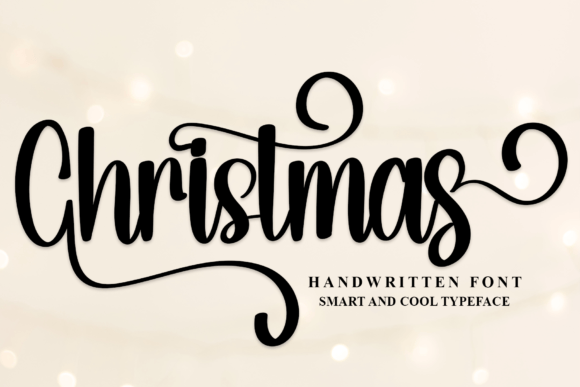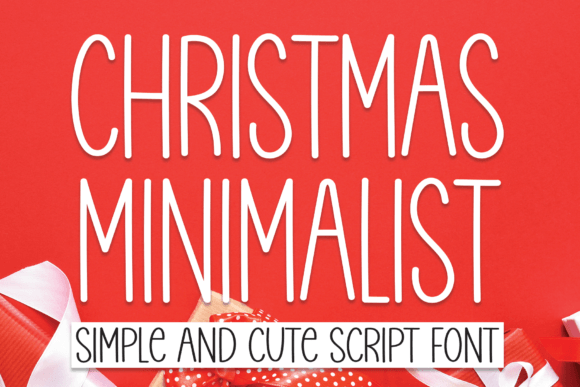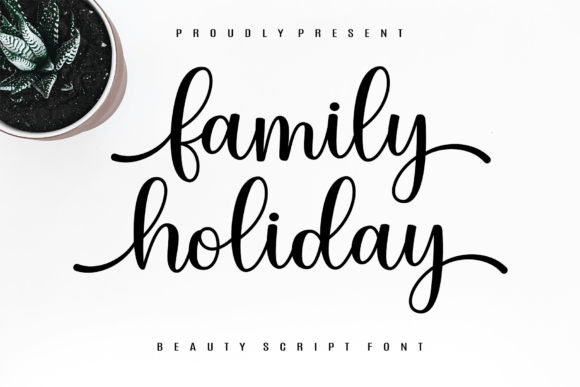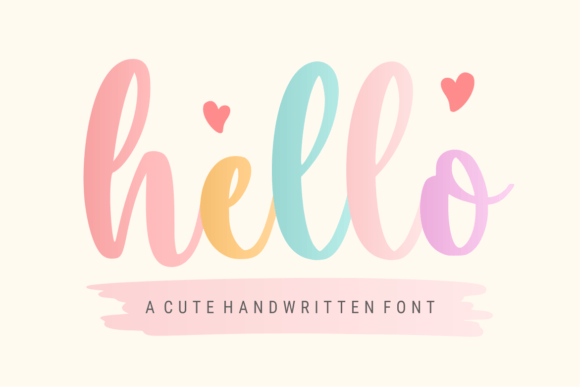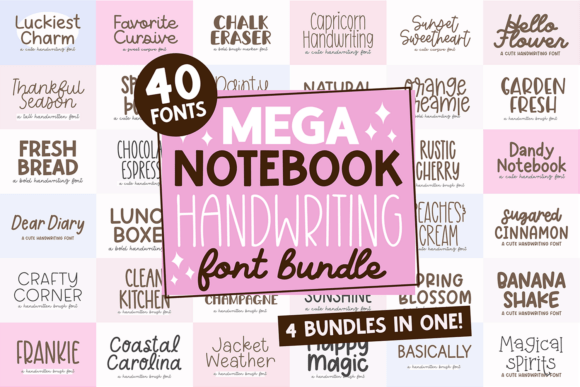
Merry Christmas Calligraphy Fonts: 21 Best Elegant Script Picks (2026)
Merry Christmas calligraphy fonts carry a different weight than a bold display headline: flowing, elegant letterforms suited to formal holiday cards, upscale gift packaging, and wedding-adjacent winter events. Here are 21 elegant Christmas script and calligraphy fonts for when the occasion calls for refinement over playfulness.
Quick Picks
Best Overall A graceful, versatile script for cards and branding
Most Formal Look for the calligraphy-style picks with dramatic swashes
Best for Branding Clean, legible scripts work best for logos and packaging
Best for Cards Delicate, connected scripts suit printed holiday cards
When to Use Elegant Christmas Calligraphy
Merry Christmas calligraphy fonts fit best where the design already leans upscale: foil-stamped cards, premium gift packaging, winter wedding stationery, or a boutique brand’s seasonal campaign. Because these scripts carry more visual weight than a plain sans serif, keep them to short phrases like a name, date, or greeting, and pair them with a simple supporting font for any additional text.
21 Merry Christmas Calligraphy Fonts
Holidays Christmas font
1. Holidays
Best for: Holiday Decor
Holidays is an amazing script font created in freestyle for crafters and artists.
Christmas Shine Christmas font
2. Christmas Shine
Best for: Holiday Decor
Christmas Shine is a beautiful and refined script font.
Christmas Beauty Day Christmas font
3. Christmas Beauty Day
Best for: Holiday Decor
Christmas Beauty Day is a delicate and elegant handwritten font. Its distinct and well-balanced letters make this font a masterpiece.
Mega Notebook Handwriting Bundle Christmas font
4. Mega Notebook Handwriting Bundle
Best for: Holiday Decor
Indulge in the charm of “Mega Font Bundle,” an eclectic mix of 40 handwriting-inspired fonts.
Hello Christmas font
5. Hello
Best for: Holiday Decor
Hello is a delicate, cute, and stylish handwritten font, suitable for a wide spectrum of applications.
Wintersnow Christmas font
6. Wintersnow
Best for: Holiday Decor
Wintersnow is a flowing handwritten font, described by an elegant touch, perfect for your favorite projects.
Santa Catalina Christmas font
7. Santa Catalina
Best for: Wedding Stationery, Logos & Branding
Santa Catalina is a beautiful handwritten font ideal for logos, wedding stationery, photography watermarks, modern websites, and more.
Family Holiday Christmas font
8. Family Holiday
Best for: Holiday Decor
Introducing Family Holiday, a strikingly beautiful script font elegantly etched in a unique style that leaves an indelible imprint in mind.
Christmas Minimalist Christmas font
9. Christmas Minimalist
Best for: Holiday Decor
Christmas Minimalist is a delicate, elegant, and flowing handwritten font. It has beautiful and well-balanced characters and as a result, it matches a wide pool of designs.
Winter Christmas font
10. Winter
Best for: Holiday Decor
Winter is an enchanting handwritten font.
Christmas font
11. Christmas
Best for: Holiday Decor
Christmas is a stylish handwritten font with a contemporary atmosphere and impeccable form, inspired by a timeless classic calligraphy.
Awesome Snowflakes Font Christmas font
12. Awesome Snowflakes Font
Best for: Holiday Decor
Awesome Snowflakes is a delicate, elegant, and flowing handwritten font. It has beautiful and well-balanced characters and as a result, it matches a wide pool of designs.
Wonderful Christmas font
13. Wonderful Christmas
Best for: Holiday Decor
Wonderful Christmas is an elegant script font with a contemporary atmosphere and impeccable form, inspired by timeless classic calligraphy.
Festive Write Christmas font
14. Festive Write
Best for: Holiday Decor
Festive Write is a handwritten font with optional heart letters.
Music Christmas font
15. Music
Best for: Holiday Decor
Give your festive creations a unique touch with Music Creative Alphabet Fonts!
Storytime Hollywing Christmas font
16. Storytime Hollywing
Best for: Logos & Branding
Storytime Hollywing is a lovely and timeless handwritten font. It is the best choice for creating eye catching logos, branding and quotes.
Wonderful Winter Christmas font
17. Wonderful Winter
Best for: Holiday Decor
Are these fonts good for wedding invitations during the holiday season?
Several work well for winter weddings specifically, since they combine a formal, romantic feel with subtle seasonal warmth rather than overt Christmas imagery.
How do I pair a Christmas calligraphy font with body text?
Use the calligraphy font only for the headline, name, or greeting, then switch to a plain serif or sans serif for dates, addresses, and any longer text.